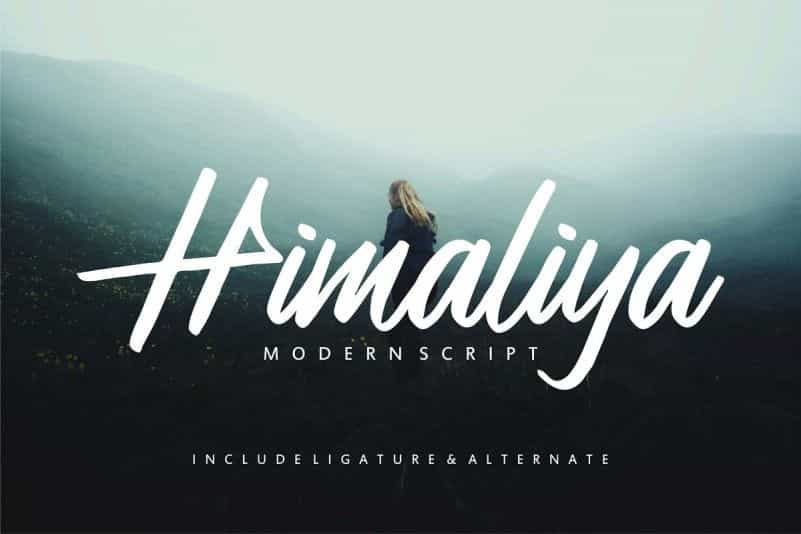
Discover Himaliya Script Font, part of the Calligraphy collection—a versatile and unique font perfect for adding a personal touch to your projects. Download it for free and enjoy crafting designs with style, from invitations to social media posts. This font is available exclusively for personal use, giving you the freedom to create without limits. Unlock your creativity with Himaliya Script Font today!
Introducing Himaliya Font. It is created and distributed by Vunira. It’s so nice on invitation such as greeting cards, branding materials, business cards, quotes, posters, and more! The alternative characters were grouped into some OpenType features, including Stylistic Sets, Stylistic Alternates, Contextual Alternates, SWASH, and Ligature.